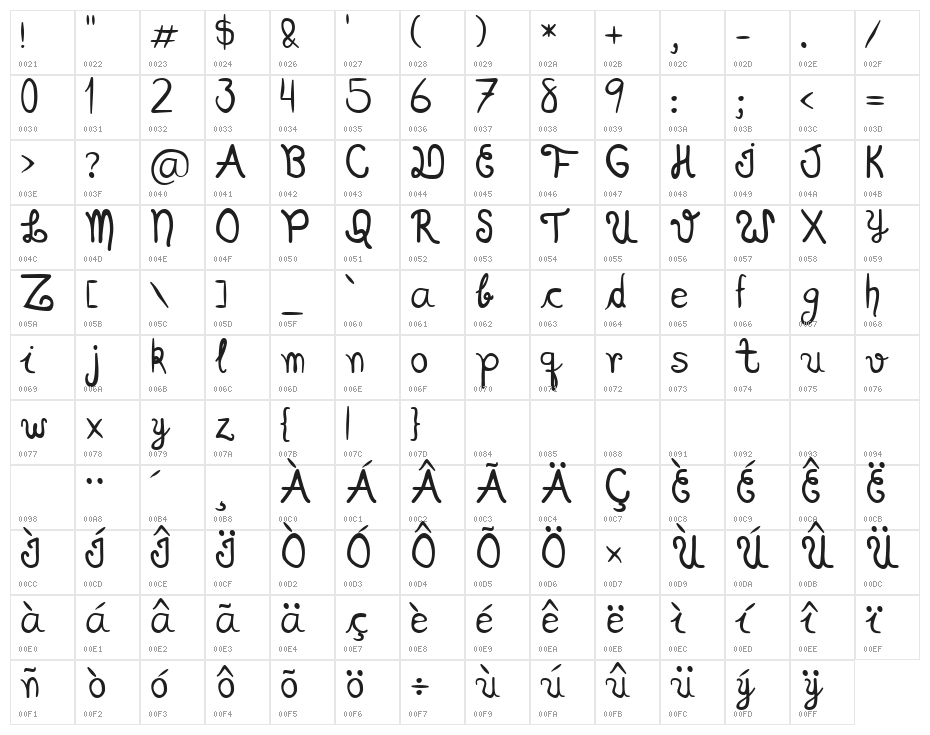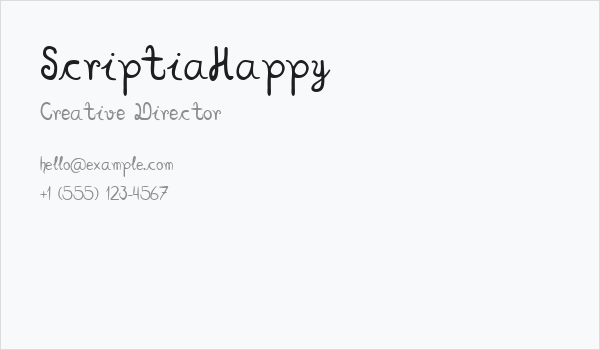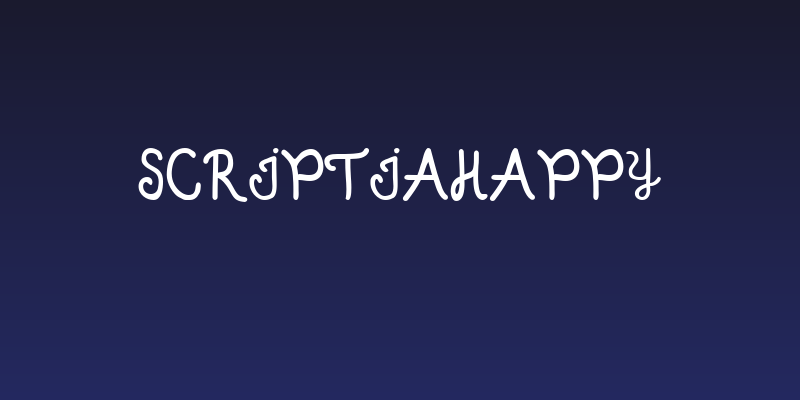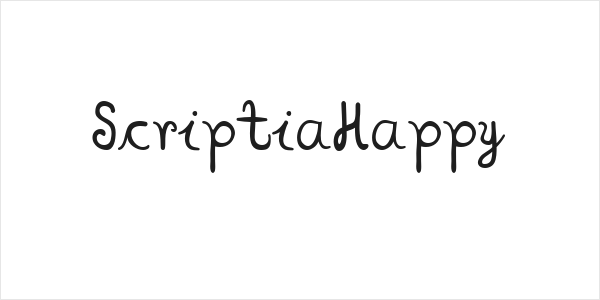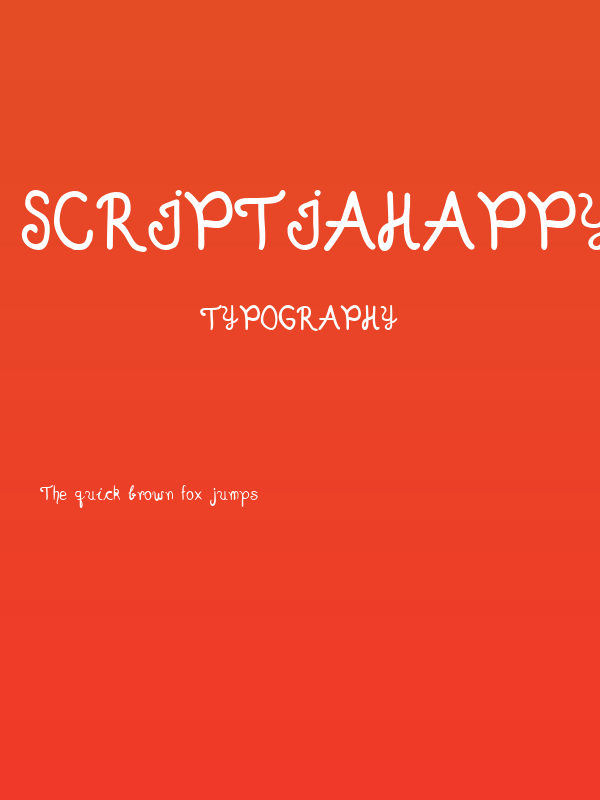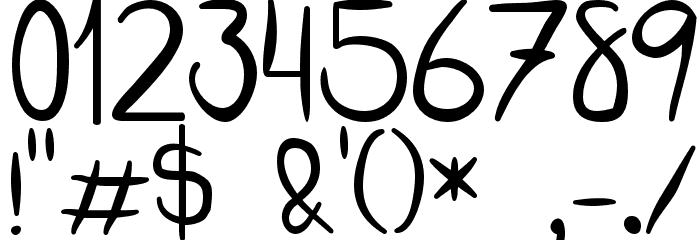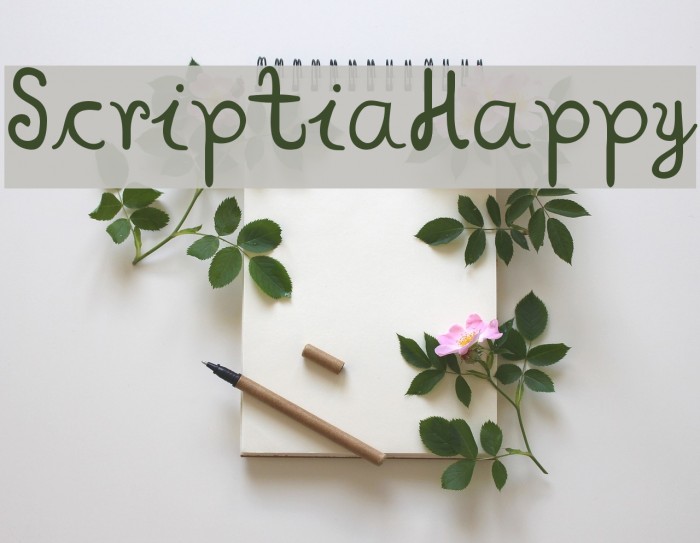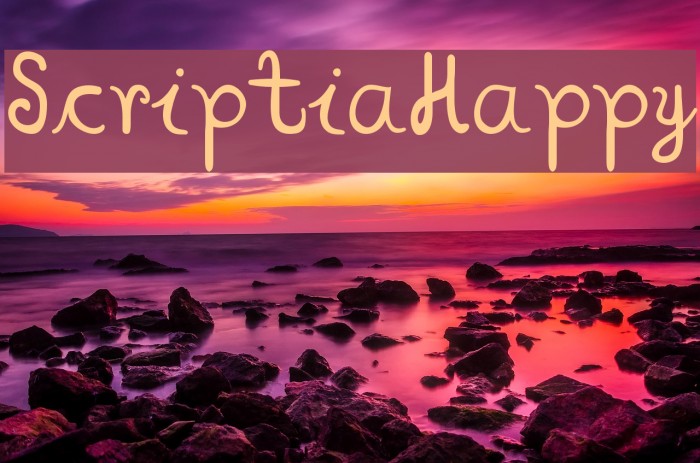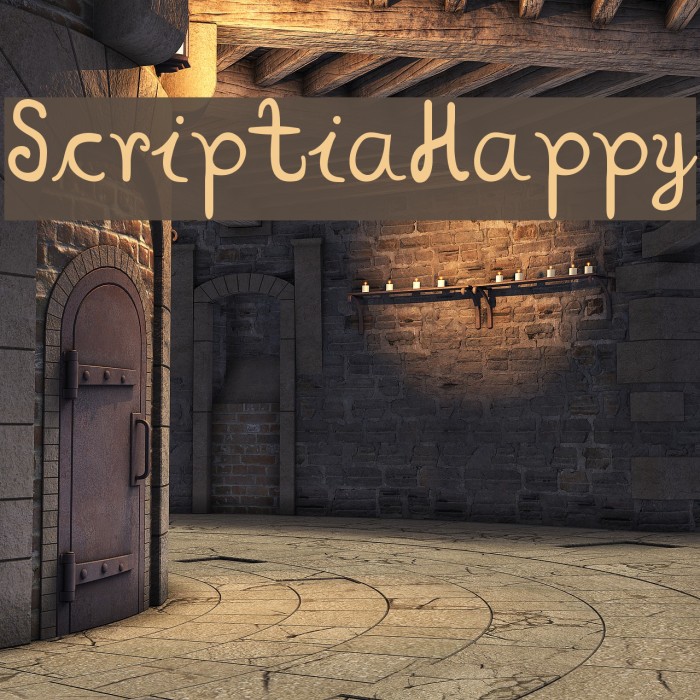
ScriptiaHappy Font
ScriptiaHappy Description
This font features a playful and whimsical design, characterized by its curly and flowing strokes. The uppercase letters exhibit a unique blend of boldness and elegance, with distinctive loops and curves that add a touch of creativity. The lowercase letters maintain a consistent style, offering a harmonious balance between readability and artistic flair. Numbers are designed with a similar playful approach, ensuring consistency across all characters. Special characters are crafted with the same attention to detail, making them suitable for a variety of creative projects.
| Proposed Projects | Ideal for children's books, greeting cards, playful branding, and creative posters. |